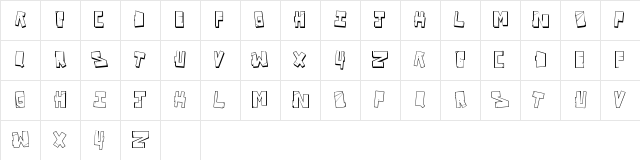
Vandal On The Fluid Regular Free Font
Vandal On The Fluid Regular
Complete Vandal On The Fluid Regular glyph index. Displaying only characters natively supported by Vandal On The Fluid Regular font.
Design Context for Vandal On The Fluid
Vandal On The Fluid is a composed and adaptable typeface that performs quietly and consistently across a wide range of design contexts.